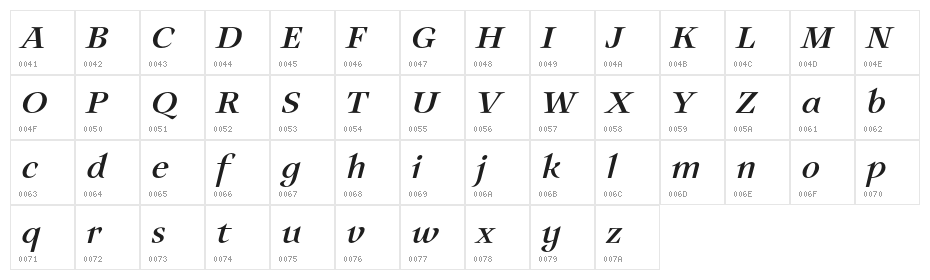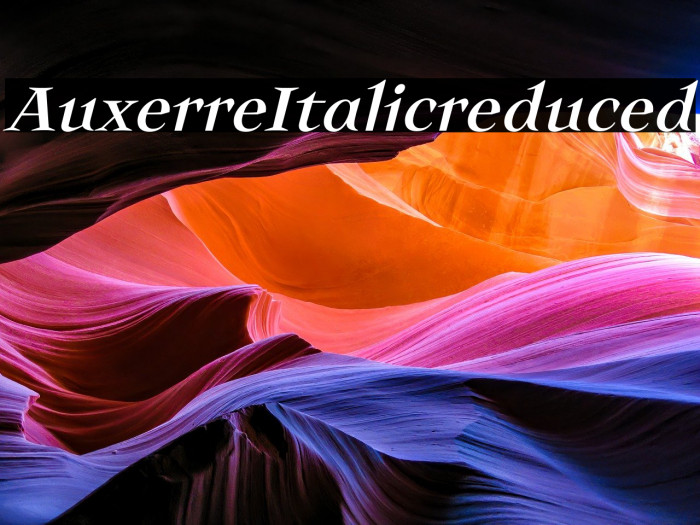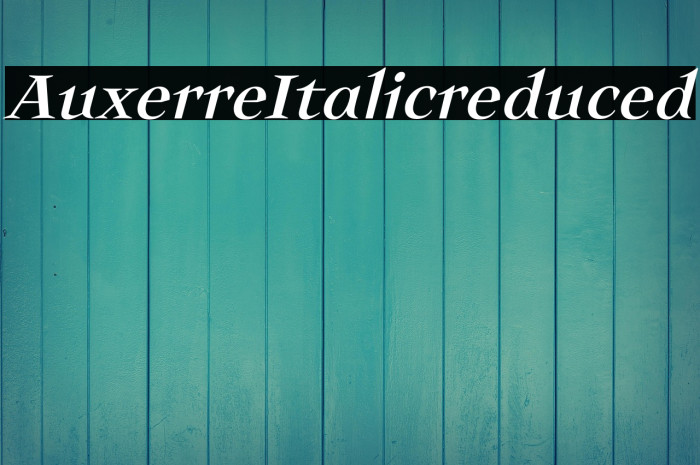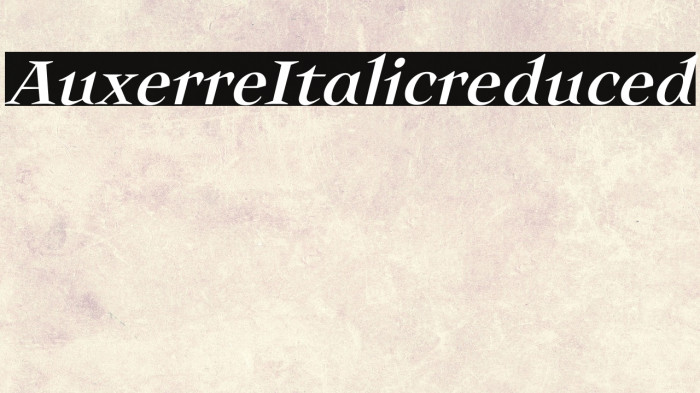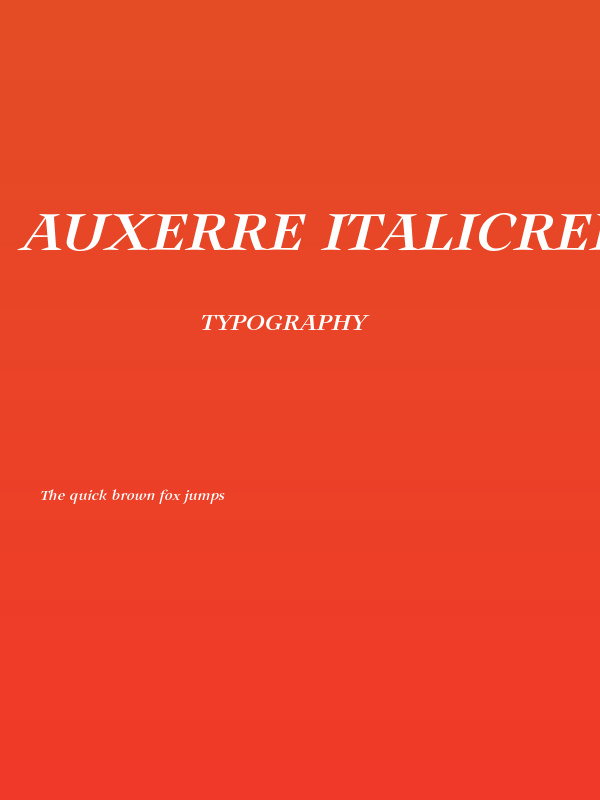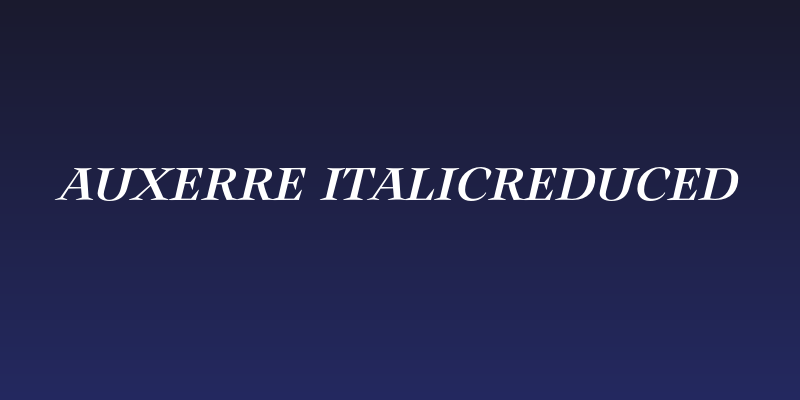
Auxerre-Italicreduced Font
Auxerre-Italicreduced Description
This font features an elegant italic style with a classic serif design. The letters are slightly slanted, giving a sense of motion and sophistication. The serifs are pronounced yet refined, adding a touch of traditional elegance. The overall appearance is both formal and stylish, making it suitable for a variety of applications. The uppercase letters are bold and commanding, while the lowercase letters maintain a graceful flow. This font is ideal for projects that require a touch of class and readability.
| Proposed Projects | Ideal for formal invitations, elegant branding, book covers, and editorial design. |